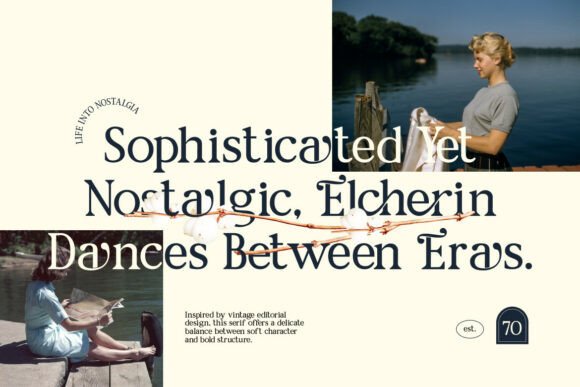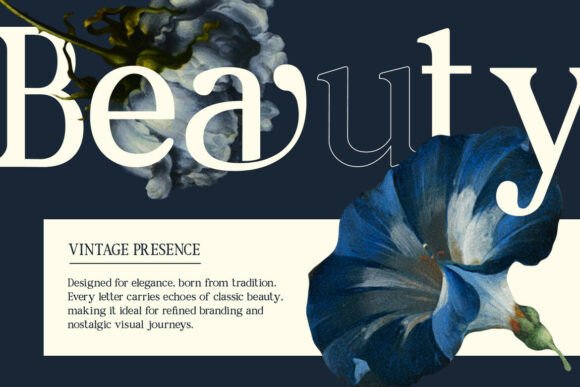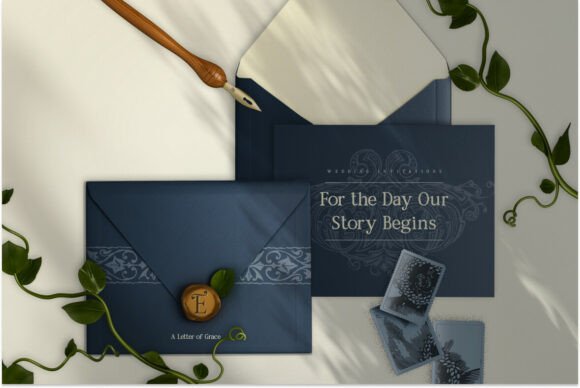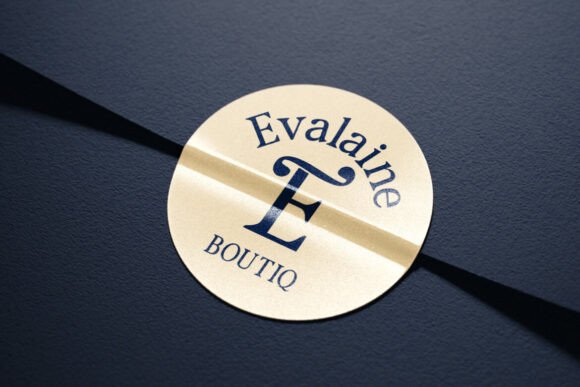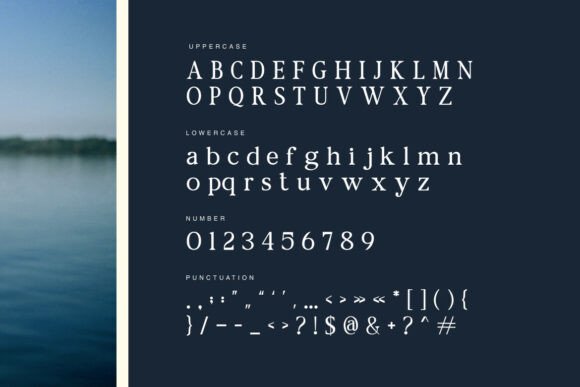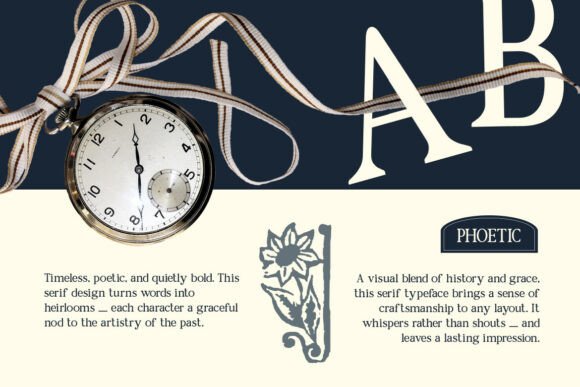
The Elcherin Font: A Timeless Elegance for Modern Design
I still remember the design project that led me to discover the Elcherin font. I was working on a luxury branding campaign for a high-end fashion client, and I was struggling to find the perfect font that exuded elegance, sophistication, and a touch of vintage charm. After hours of searching, I stumbled upon Elcherin, and it was love at first sight. The refined display serif typeface seemed to tick all the boxes – timeless heritage, modern sophistication, and a quietly bold presence that perfectly captured the essence of my client’s brand.
An Honest Review of Elcherin Font
What I Love About Elcherin ✨
- ✨ Timeless elegance: Elcherin’s classic design makes it perfect for luxury branding, fashion editorials, and high-end packaging.
- ✅ High-contrast strokes: The confident strokes add a touch of sophistication and drama to any design.
- ✅ Distinctive serif terminals: The subtle decorative charm of the serif terminals sets Elcherin apart from other serif fonts.
- ✅ Versatility: Elcherin works beautifully for a range of applications, from wedding invitations to lifestyle magazines.
While Elcherin is an exceptional font, there are a few minor quirks to be aware of:
- ⚠️ Limited use in body text: Due to its high-contrast strokes and elegant design, Elcherin may not be the best choice for lengthy body text.
- ⚠️ Requires attention to kerning: As with any serif font, kerning is crucial to ensure Elcherin looks its best.
- 🤔 Not ideal for very small sizes: Elcherin’s elegant features may get lost at very small font sizes.
The Backstory of Elcherin Font
Elcherin was designed by a team of typographers who drew inspiration from vintage editorial aesthetics and poetic storytelling. The font’s name, Elcherin, is derived from a combination of “elegance” and “cherish,” reflecting the font’s timeless and refined character.
| Font Name | Elcherin Font |
| Author | product.rasiostudio |
Q: What is the best use for Elcherin font?
A: Elcherin is perfect for luxury branding, fashion editorials, wedding invitations, book covers, and high-end packaging.
Q: Can I use Elcherin for body text?
A: While Elcherin is an elegant font, it’s not ideal for lengthy body text due to its high-contrast strokes and elegant design.
Q: Is Elcherin a versatile font?
A: Yes, Elcherin works beautifully for a range of applications, from digital media to print materials.